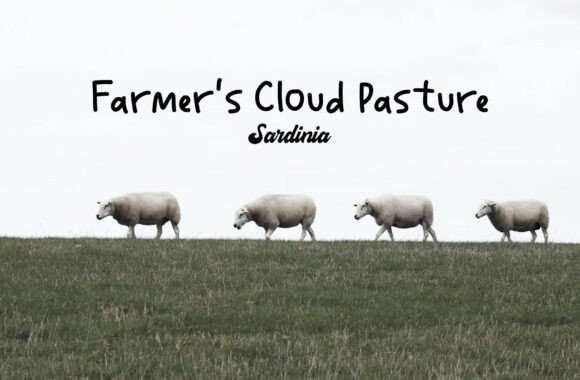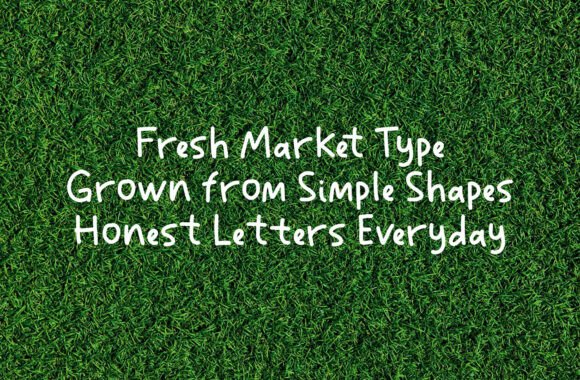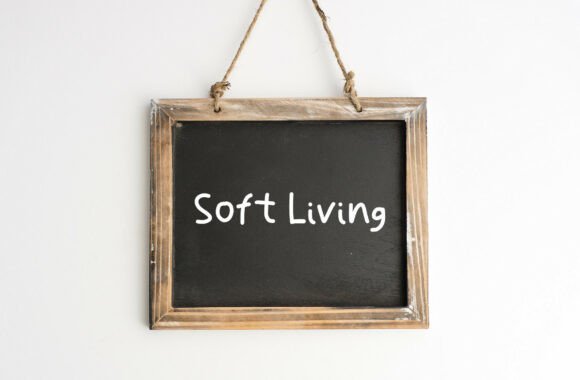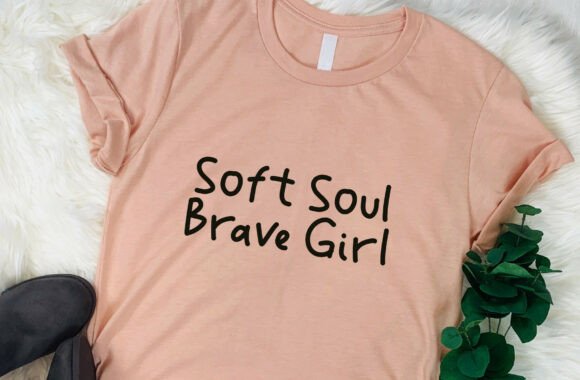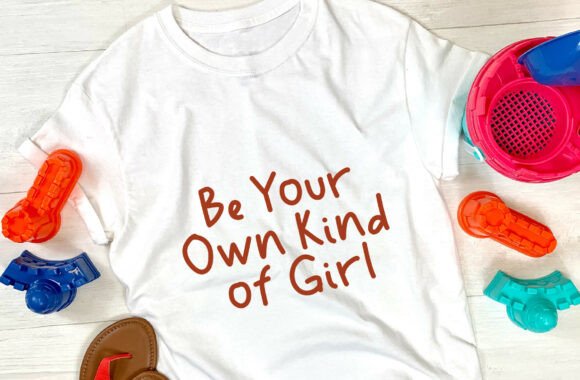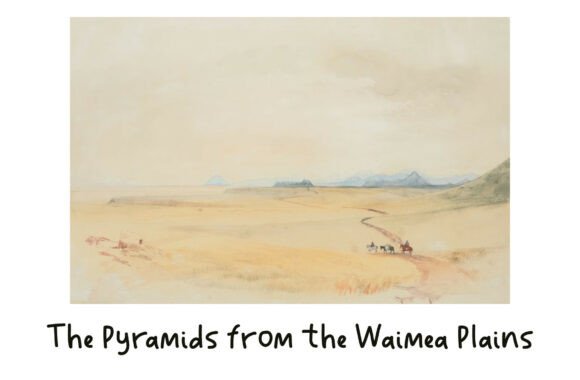
Introducing Farmer Marketica Font: The Perfect Hand-Drawn Typeface for Friendly and Artistic Designs
Are you a designer, crafter, or artist looking for a unique and expressive font to elevate your visual designs? Look no further than Farmer Marketica Font, a charming hand-drawn typeface that is perfect for creating friendly, artistic, and playful designs. In this article, we’ll dive into the features and benefits of Farmer Marketica Font, and explore its endless possibilities for use in various creative projects.
What is Farmer Marketica Font?
Farmer Marketica Font is a hand-drawn typeface that boasts organic, imperfect strokes, giving it a delightfully rustic and whimsical feel. This font is designed to add a touch of warmth and personality to your designs, making it perfect for projects that require a friendly and approachable tone. With its unique and artistic style, Farmer Marketica Font is sure to capture the attention of your audience and leave a lasting impression.
Key Features of Farmer Marketica Font
- Hand-drawn with love: Each letter has been carefully crafted by hand, giving the font a personal and human touch.
- Organic and imperfect strokes: The font features imperfect strokes that add to its charm and character.
- Friendly and artistic: Farmer Marketica Font is designed to create friendly, artistic, and expressive visual designs.
- Multipurpose: This font is perfect for a wide range of creative projects, from social media graphics to children’s books, invitations, and more.
Farmer Marketica Font is an incredibly versatile font that can be used in a variety of creative projects, including:
- Social media graphics: Add a touch of personality to your social media posts and stories with this charming font.
- Children’s books: Create engaging and playful illustrations for kids’ books that will capture their imagination.
- Playful illustrations: Use Farmer Marketica Font to add a whimsical touch to your illustrations and make them stand out.
- Invitations: Create beautiful and unique invitations for parties, events, and special occasions.
- Canva projects: This font is perfect for use in Canva projects, from posters and flyers to planners and more.
- Posters and flyers: Create eye-catching posters and flyers that will grab attention and convey your message.
- Cricut projects: Use Farmer Marketica Font in your Cricut projects, from DIY signs to personalized gifts.
- Logos: Create a unique and memorable logo for your brand or business with this font.
- Teachers and educators: Use Farmer Marketica Font to create engaging and interactive learning materials.
- Goodnotes and planners: Add a touch of personality to your Goodnotes and planners with this charming font.
- Quotes and headings: Use Farmer Marketica Font to create inspiring quotes and headings that will add a touch of elegance to your designs.
Why Choose Farmer Marketica Font?
With so many fonts available, why choose Farmer Marketica Font? Here are just a few reasons why this font stands out:
- Unique and distinctive: Farmer Marketica Font has a unique and distinctive style that will set your designs apart.
- Easy to read: Despite its hand-drawn nature, this font is easy to read and understand.
- Highly versatile: Farmer Marketica Font can be used in a wide range of creative projects.
- Perfect for friendly designs: This font is designed to create friendly and artistic designs that will resonate with your audience.
| Font Name | Farmer Marketica Font |
| Author | Fontysia |
Farmer Marketica Font is a charming hand-drawn typeface that is perfect for designers, crafters, and artists looking to add a touch of personality to their visual designs. With its organic, imperfect strokes and friendly, artistic style, this font is sure to capture the attention of your audience and leave a lasting impression. Whether you’re creating social media graphics, children’s books, invitations, or more, Farmer Marketica Font is the perfect choice for your next creative project.